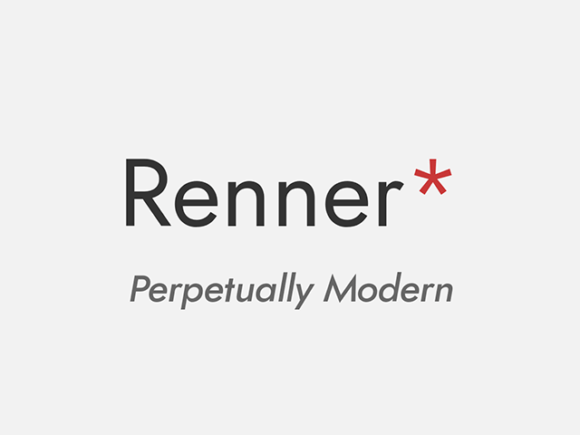
Renner* is a free typeface inspired to Futura and designed by Owen Earl. Renner* is an original font that aims to keep the attitude of Futura rather than the exact design. Futura was designed to be functional in its day and in that spirit, Renner* aims to be as functional as possible in the digital era. For that reason it deviates from the exact designs of Paul Renner, favoring, for example, a larger x-height.
The font has 9 weights, ranging from Hairline to Black. It can support many languages, includes stylistic alternatives, and both tabular and proportional numbers.
As of version 3.0, Renner* supports OpenType Variable Font technology that allows users to control the exact weight and italic of the font. Loading the variable font version into a program such as Adobe Photoshop will allow you to precisely control the weight and italic angle of the font, giving you control like never before.